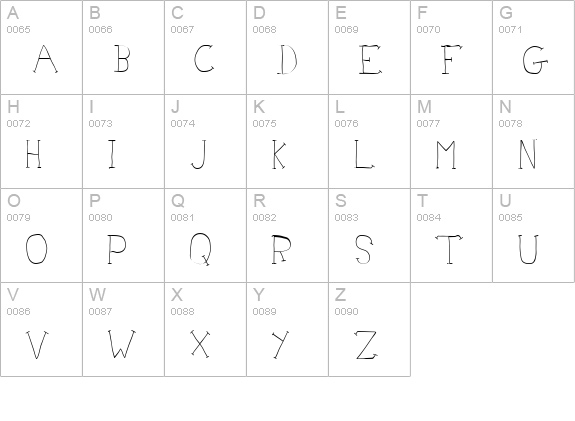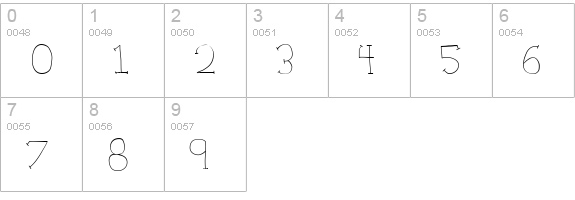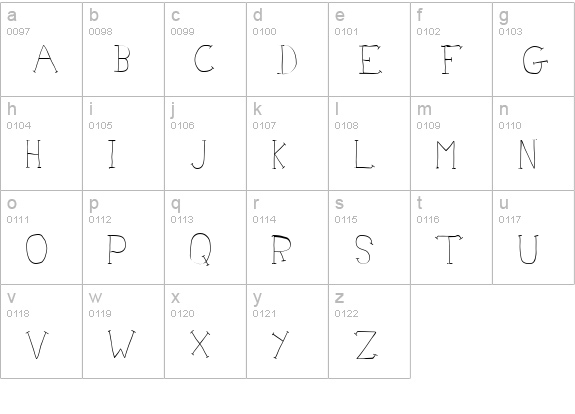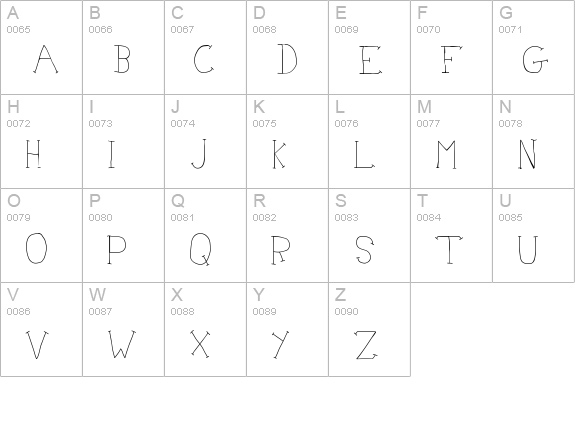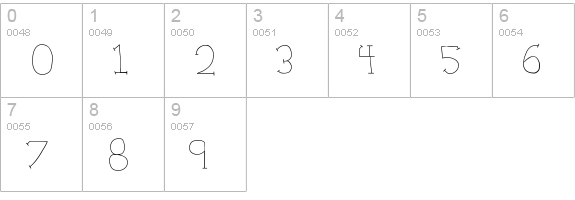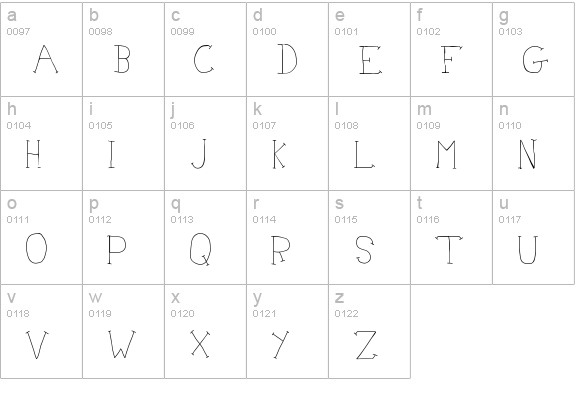
Doctor Azul font is a stylish and versatile typeface that exudes elegance and sophistication. With its clean lines and modern aesthetic, this font is perfect for a wide range of design projects, from branding to editorial design. The sleek and professional look of Doctor Azul makes it a great choice for creating eye-catching logos, posters, and social media graphics. What sets Doctor Azul font apart is that it is available for free download at FontsMarket.com. This means that you can easily access this high-quality font and use it in your projects without any cost. Whether you are a professional designer or a hobbyist, Doctor Azul font offers a great opportunity to elevate your designs with its timeless appeal and distinctive style. Download Doctor Azul font today and add a touch of sophistication to your next creative project.